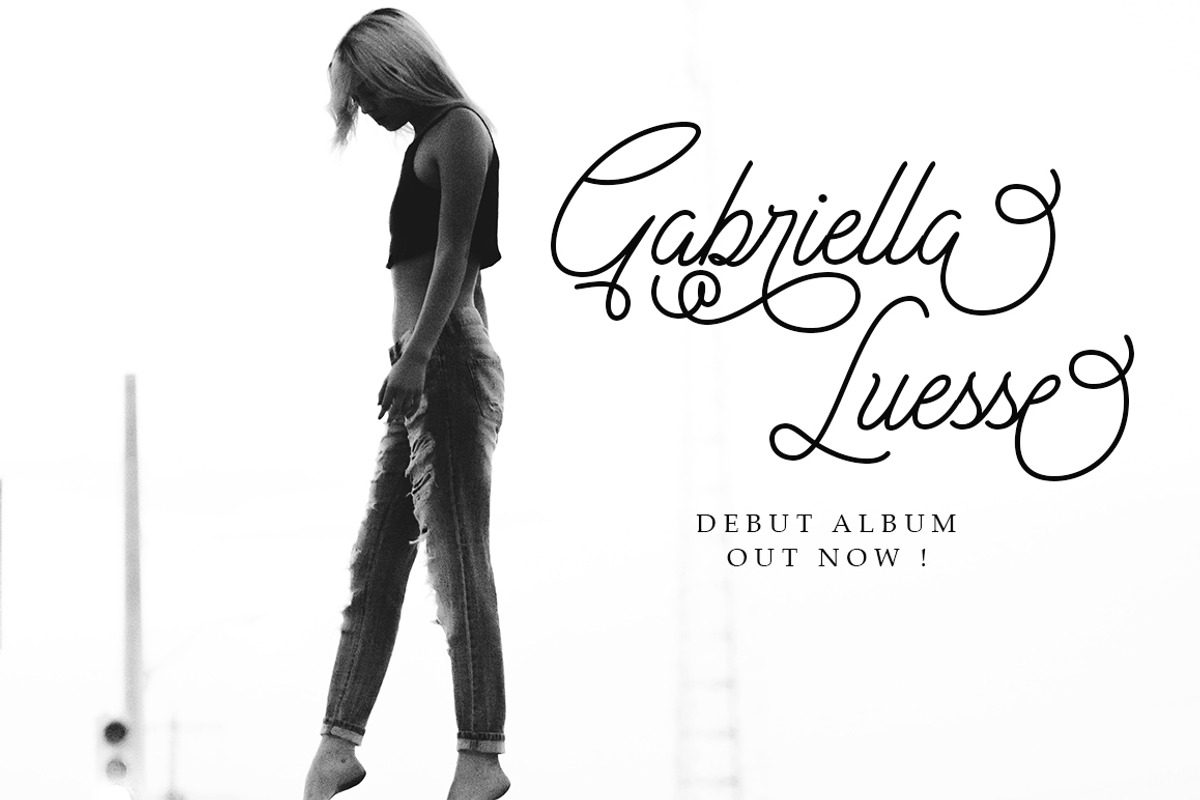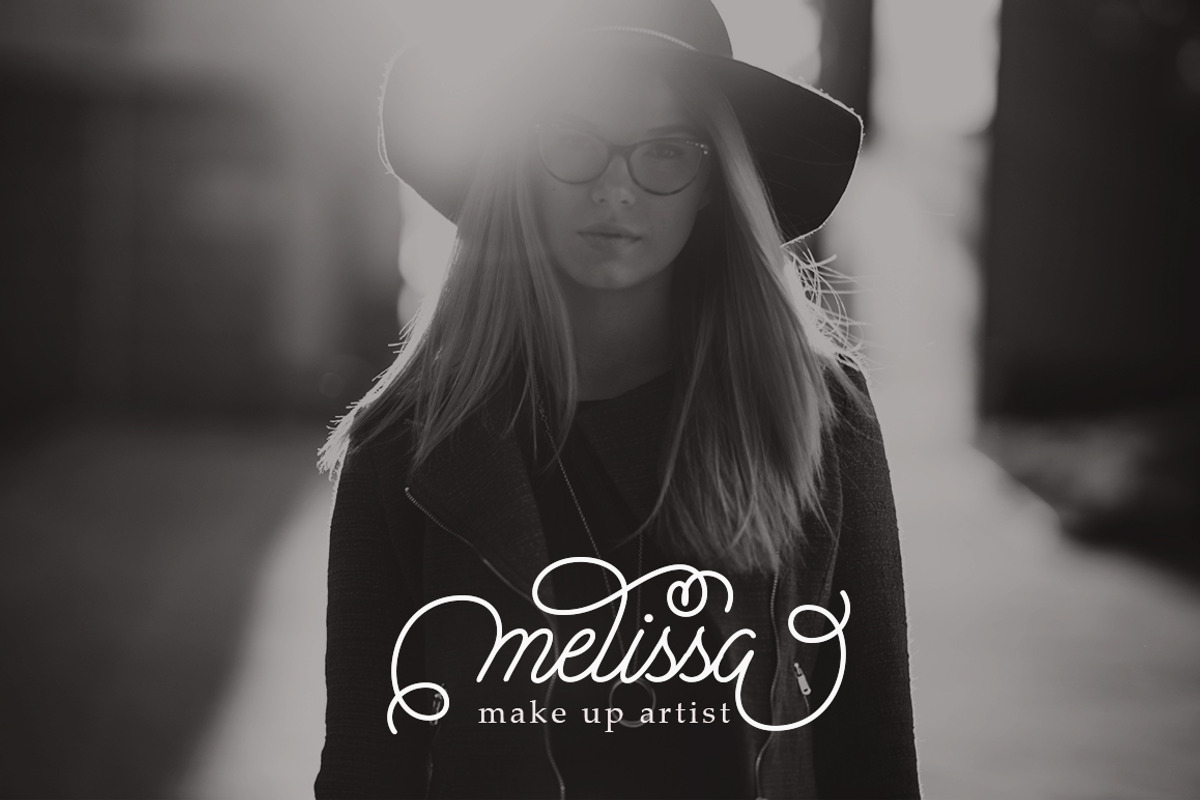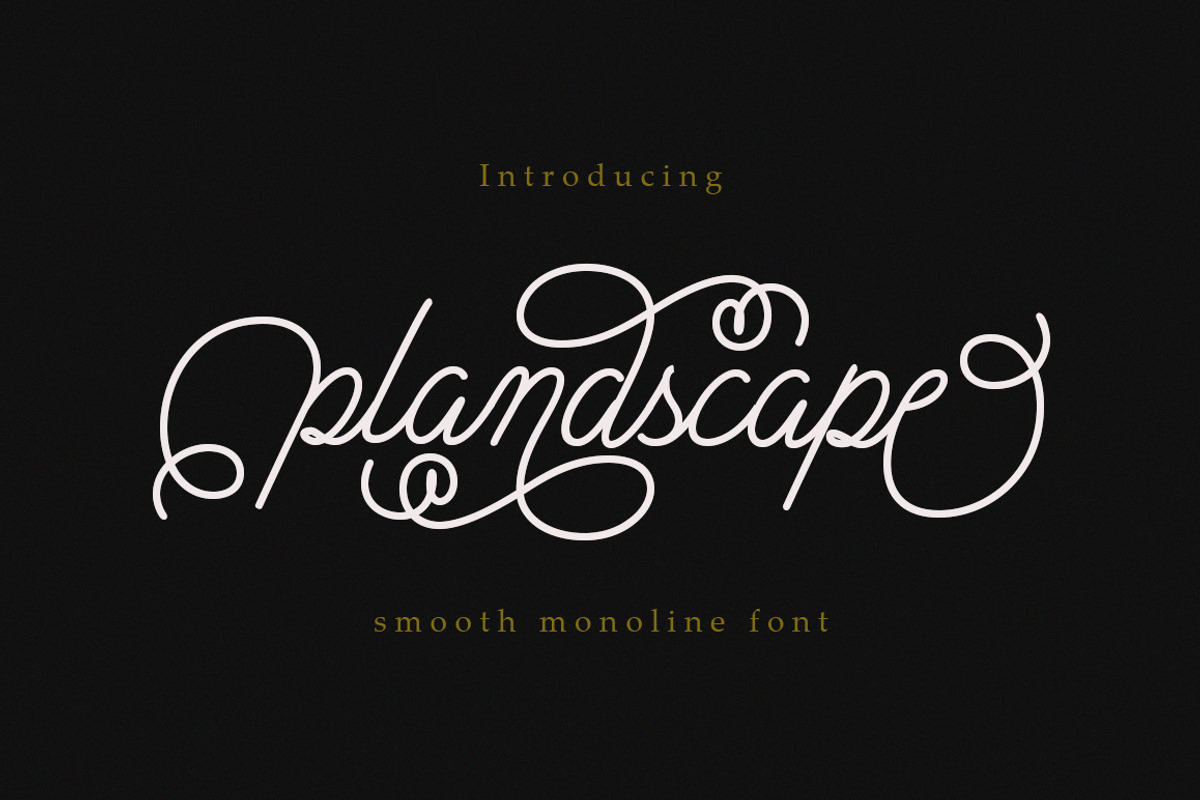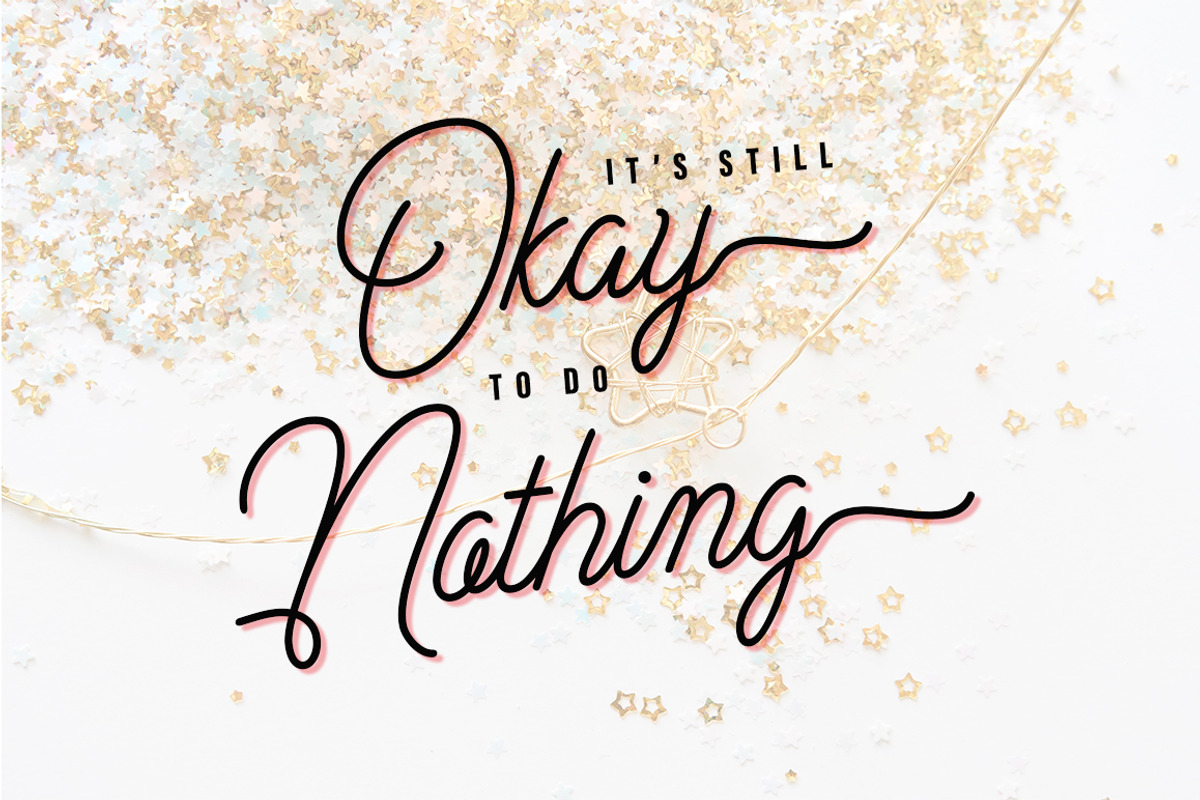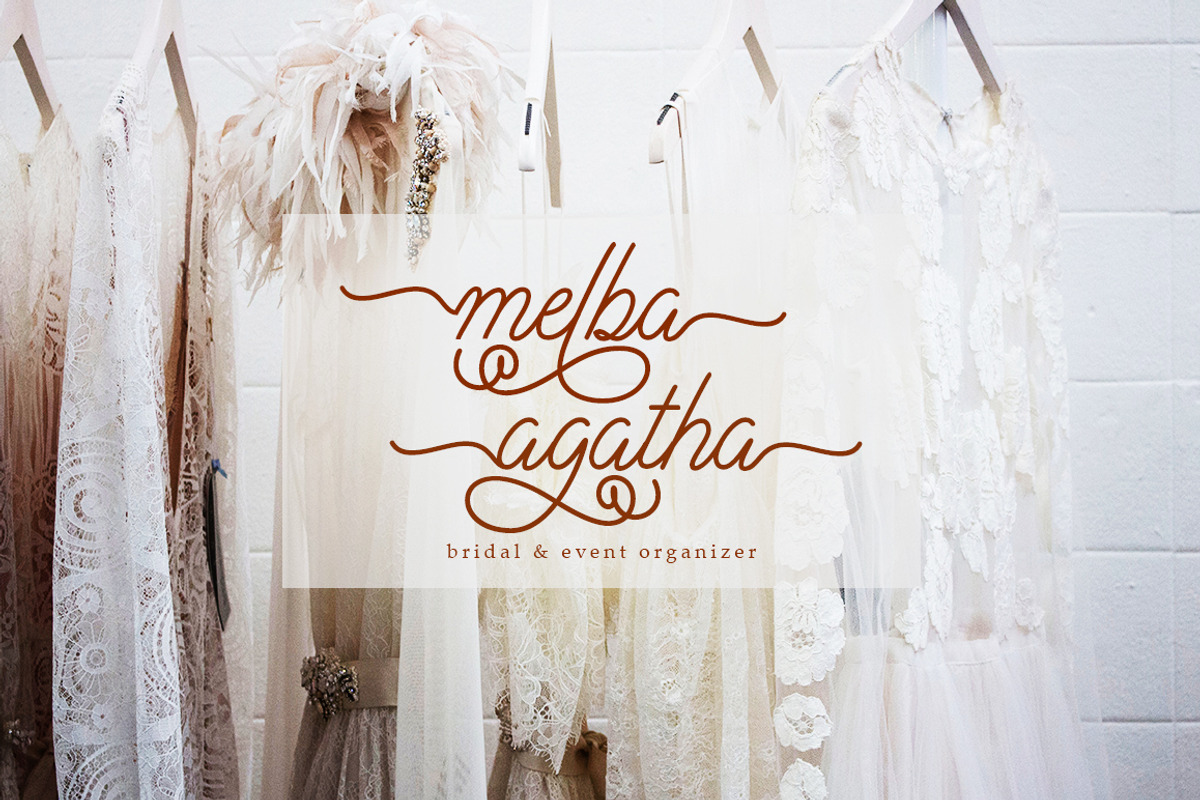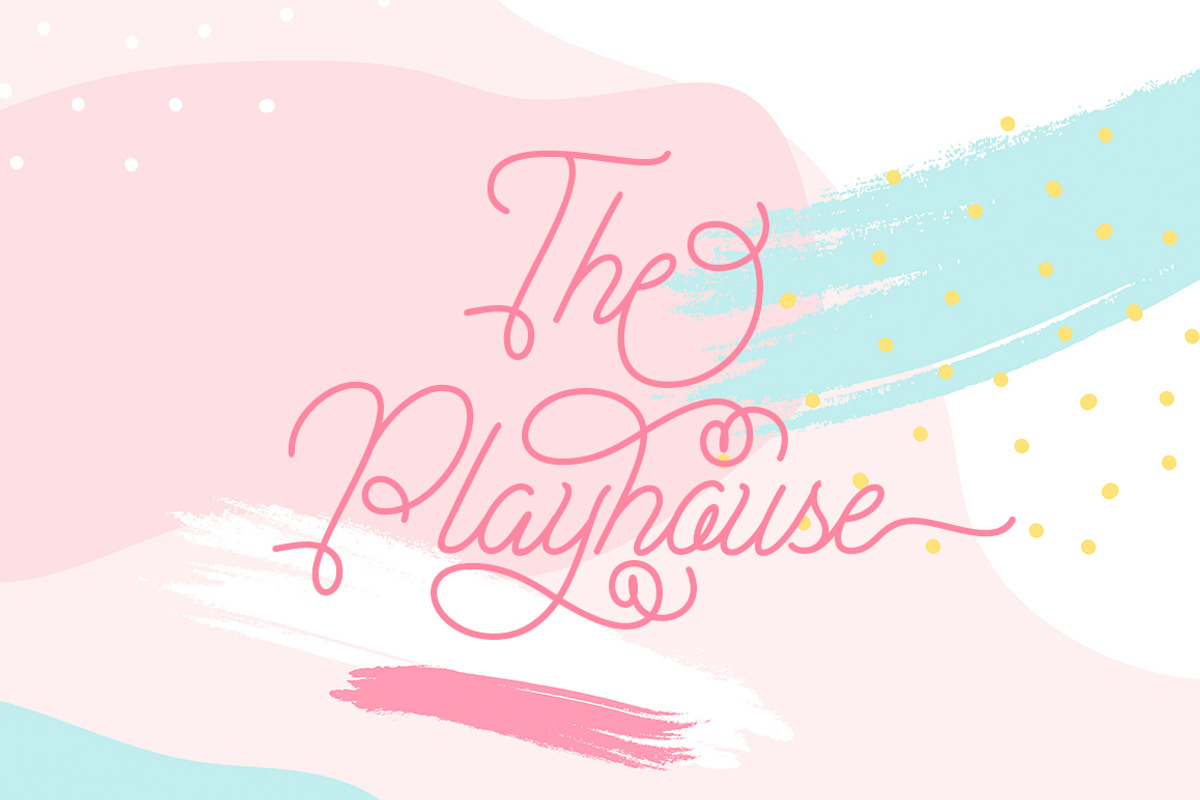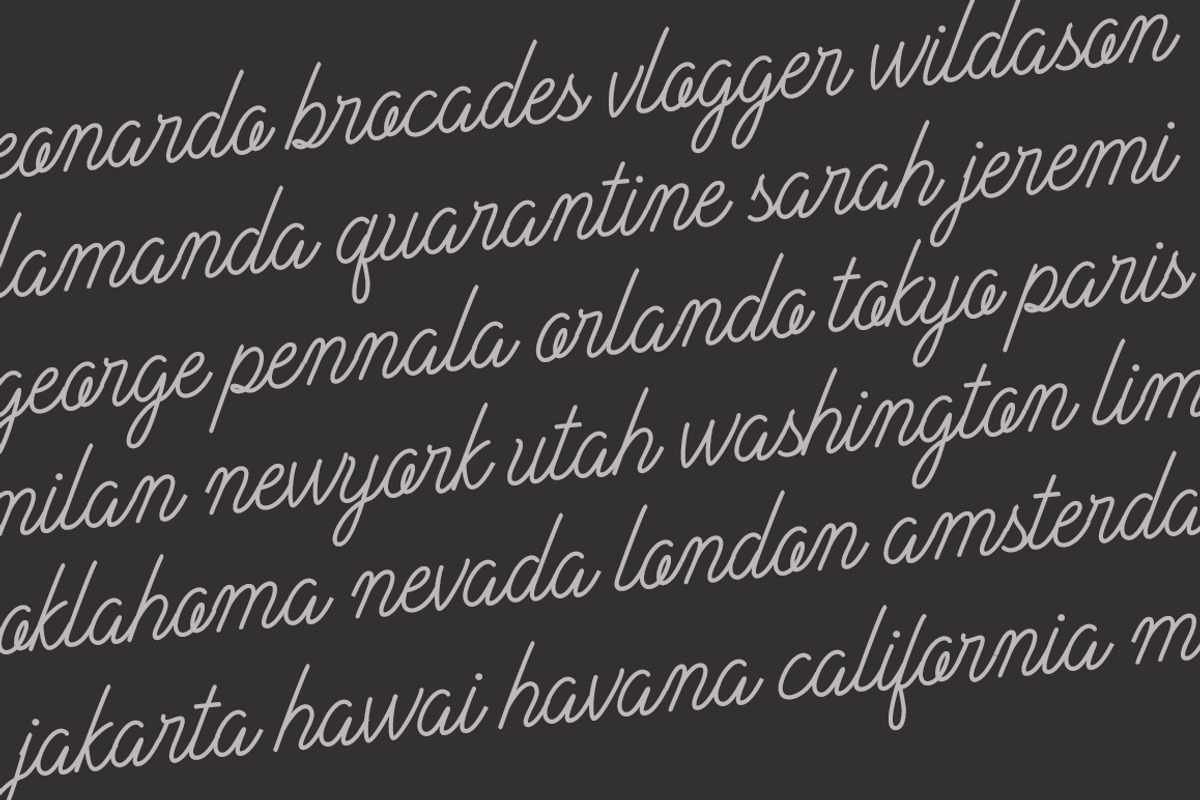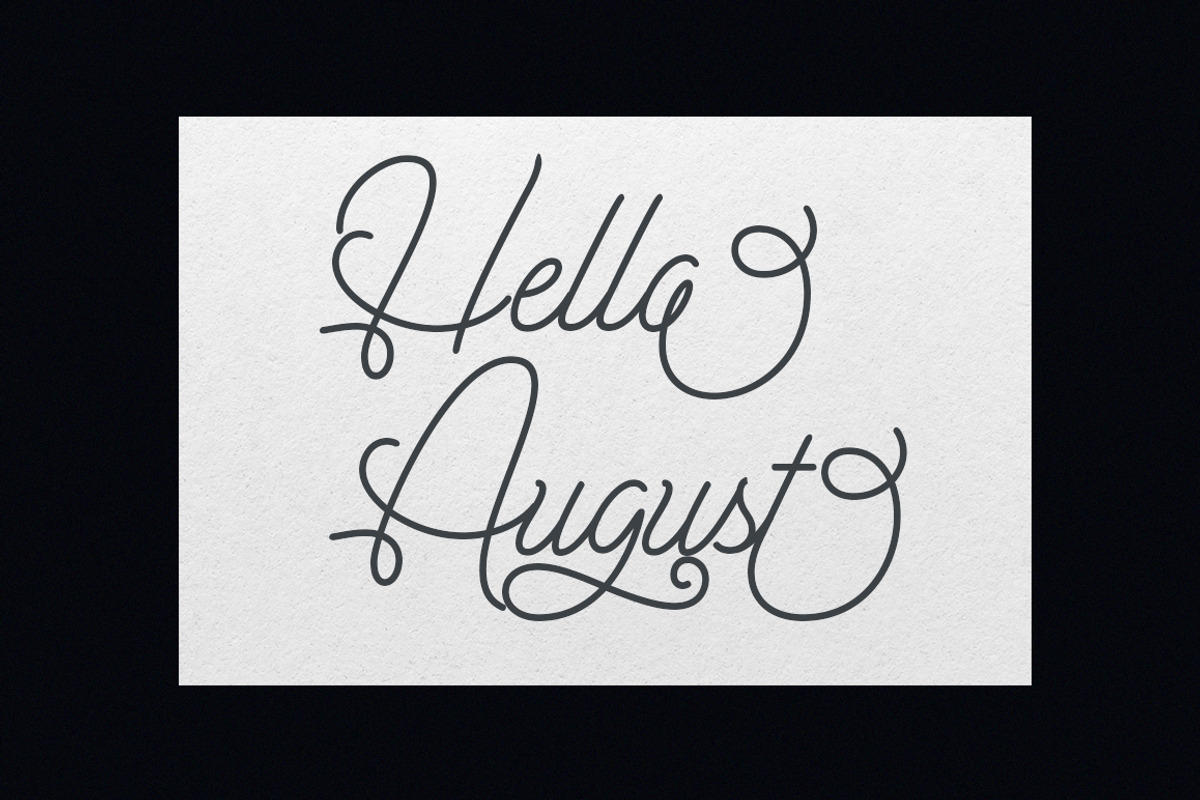
Plandscape smooth monoline font
Plandscape smooth monoline font is a beautiful and simple handwriting script font, contemporary and fashionable, Plandscape smooth monoline font looks elegant for a wide variety of designs. This elegant font can be read and looks good as a title or body text. This font will be perfect for many different designs for magazine headlines, social media, branding, wedding invitations, cards, etc.
Plandscape smooth monoline font include ligatures, capital letters and alternate letters.
They are easy to use and perfect for expressing your thoughts, posting quotes and simple daily updates on social media.